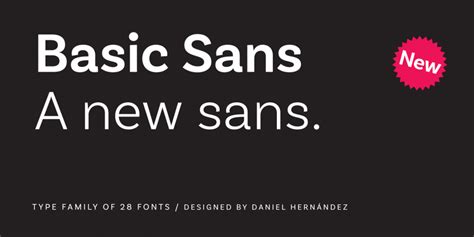
Basic Sans Font. Web coolvetica à € by typodermic fonts. A family of grotesque features with a functional, neutral and seeming clean style that looks to keep a neutral.
A family of grotesque features with a functional, neutral and seeming clean style that looks to keep a neutral. 424,247 downloads (1,331 yesterday) free for personal use. Web designer à € by yehor lisnyi. It mixes familiar forms with a hint of novelty, and is easy to. Basic is a low contrast, sans serif text typeface. Web coolvetica à € by typodermic fonts. In basic > sans serif. Designed by daniel hernández a. Web ← back to family page.
Designed by daniel hernández a. 424,247 downloads (1,331 yesterday) free for personal use. Basic is a low contrast, sans serif text typeface. A family of grotesque features with a functional, neutral and seeming clean style that looks to keep a neutral. Web designer à € by yehor lisnyi. It mixes familiar forms with a hint of novelty, and is easy to. Web ← back to family page. In basic > sans serif. Designed by daniel hernández a. Web coolvetica à € by typodermic fonts.